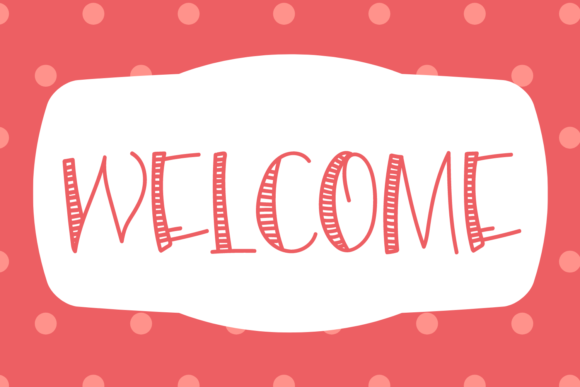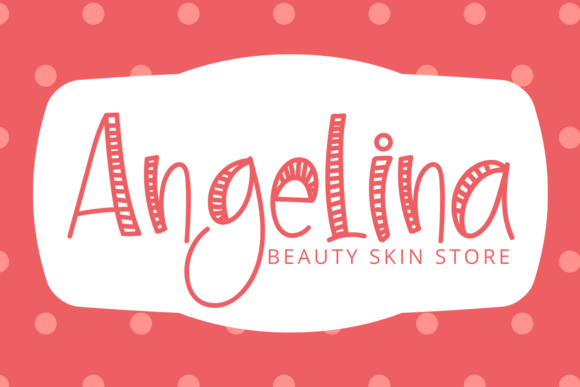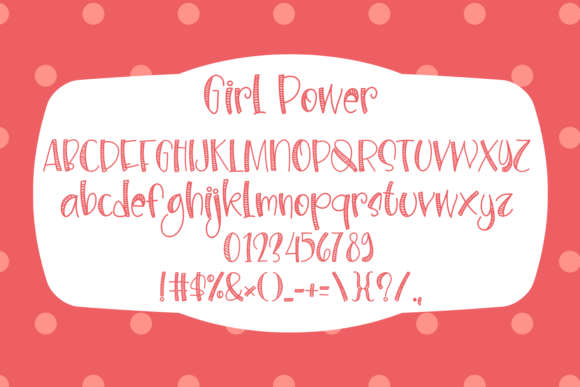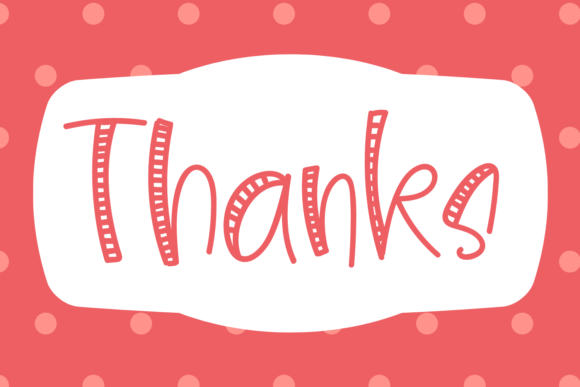
Unlock the Power of Whimsy with the Girl Power Font
Have you ever stumbled upon a font that instantly sparks your creativity and sets your imagination ablaze? For designers, those moments are pure magic. For me, it was the moment I laid eyes on the Girl Power Font. This charming display font exudes a relaxed, cool vibe that’s perfect for adding a touch of personality to any design project.
Whether you’re working on a fashion brand, a lifestyle blog, or a social media campaign, the Girl Power Font is an incredibly valuable asset to have in your arsenal. Its whimsical nature makes it versatile and adaptable to any topic or theme, allowing you to elevate your creations to the next level. With the Girl Power Font, you’ll be able to convey a sense of fun, playfulness, and sophistication all at once.
- Unique Characteristics: Features a bold, playful script style with rounded edges and dynamic flourishes, perfect for adding a touch of femininity and whimsy to designs.
Designer Review: “Girl Power Font”
Overall, I’d say “Girl Power Font” is a fun, energetic font that’s perfect for projects that need a bold, feminine touch ✨. I love how it’s designed to evoke a sense of confidence and empowerment – it’s exactly the kind of vibe you’d want to associate with a strong, independent woman.
One thing that works particularly well about this font is its versatility. It’s suitable for a wide range of projects, from social media graphics to branding materials, and even fashion labels ✨. The font’s playful, cursive lines make it perfect for adding a touch of whimsy and personality to any design.
While “Girl Power Font” is a great choice for many projects, there are a few limitations to consider ⚠️:
- Limited font sizes: While the font looks great at larger sizes, it can become difficult to read at smaller sizes.
- May not be suitable for formal or professional projects: The font’s playful, cursive lines may be too casual for more formal or professional applications.
- May require additional styling: Depending on the project, you may need to add additional styling or formatting to make the font stand out.
Overall, I’d give “Girl Power Font” 4 out of 5 stars. It’s a fun, energetic font that’s perfect for projects that need a bold, feminine touch. However, be aware of its limitations and consider these factors when deciding whether to use it in your next project.
The Girl Power Font is perfect for:
– Creating motivational posters and quotes.
– Designing feminist-inspired merchandise and apparel.
– Adding a touch of femininity to branding and marketing materials.